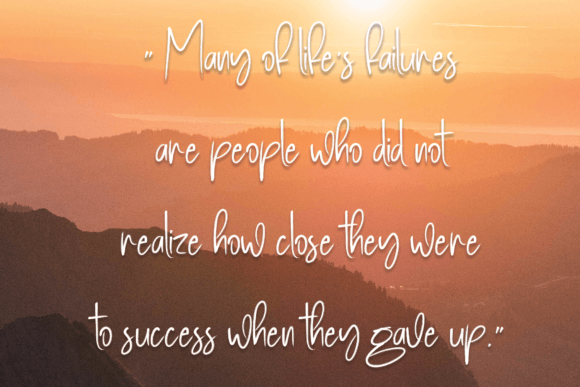
Book Signature Font
Book Signature is a delicate, elegant, and flowing handwritten font. It has beautiful and well-balanced characters and as a result, it matches a wide pool of designs.